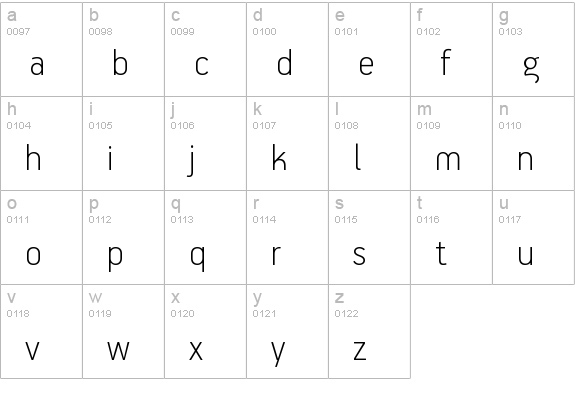
PFHandbookPro-Thin Font Details
PFHandbookPro-Thin is a delicate, low-contrast variant in the PFHandbookPro typeface family \xE2\x80\x94 well suited to fashion editorial, minimal branding, and high-contrast display.
PFHandbookPro-Thin is a sleek and elegant font that exudes sophistication and modernity. With its thin strokes and clean lines, this font is perfect for creating a polished and professional look in your designs. Whether you are working on a branding project, a website design, or any other creative endeavor, PFHandbookPro-Thin is sure to make a statement. The best part? This font is completely free to download at FontsMarket.com. So go ahead and elevate your designs with the refined beauty of PFHandbookPro-Thin today!